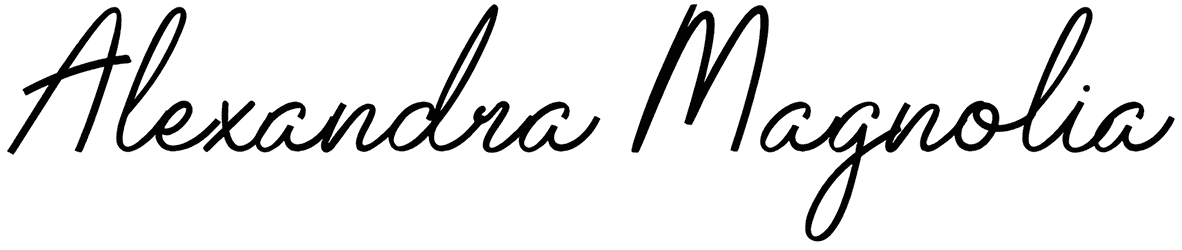
Alexandra Magnolia Font
Do you want to share an elegant vibe today? So Alexandra Magnolia is just for you. This handwritten font with delicate and thin letters can be perfect for logo and branding, signatures, tattoos, and other needs. Get it without a second thought and amaze your clients.